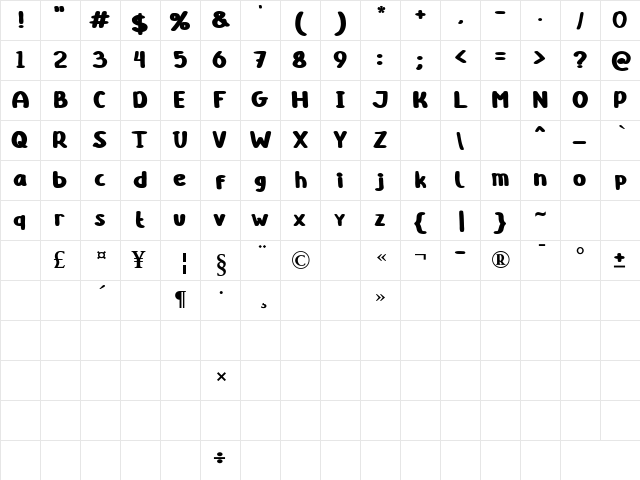
Polka B Bold
Design Context for Polka B Typeface
Polka B is a composed and adaptable typeface that performs quietly and consistently across a wide range of design contexts. Its bold stroke weight gives it real presence on the page.